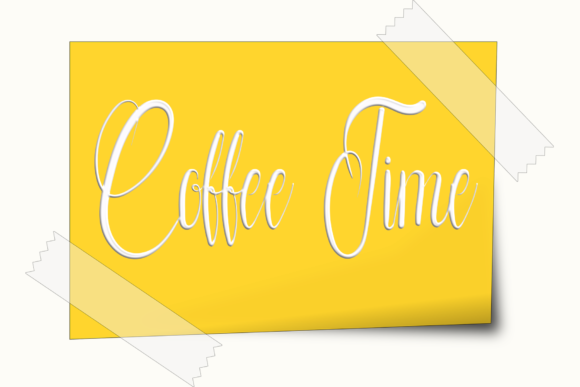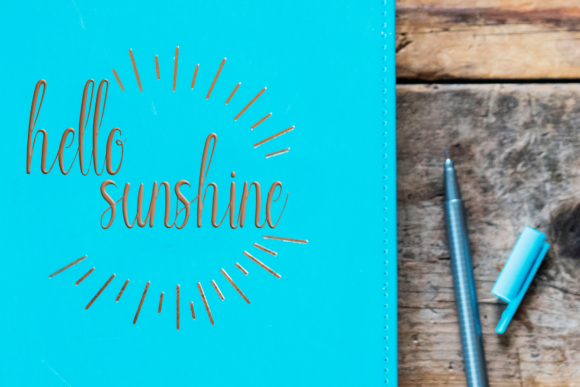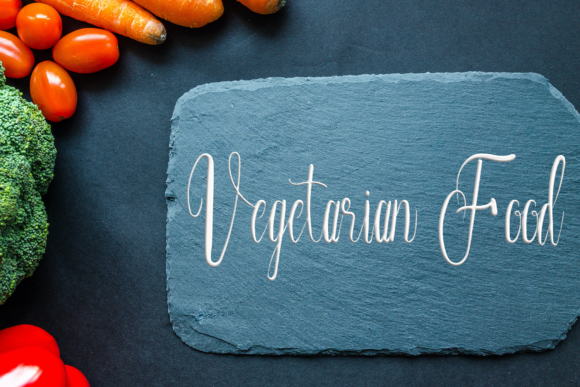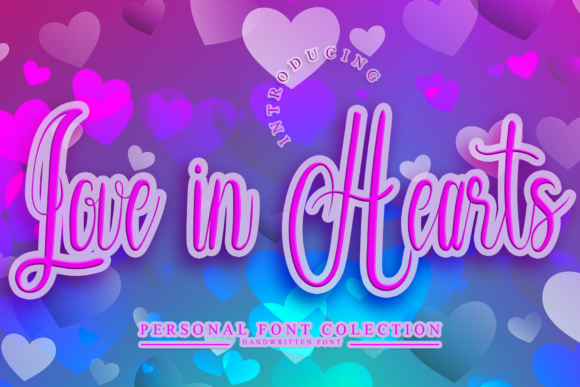
Introduction to Love in Hearts Font
Love In Hearts is a tall and elegant script font.
Get creative with this font and use it to create stunning designs .
Why Choose Love in Hearts Font?
Love in Hearts Font offers exceptional quality and versatility, making it a valuable addition to your design toolkit. Whether you’re creating for personal projects or commercial use, Love in Hearts Font delivers professional results.